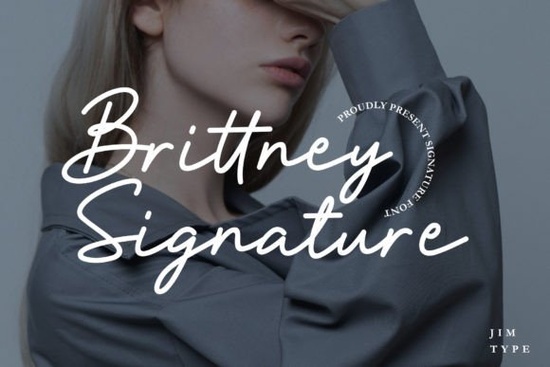
The Brittney Signature Font is a flowing script typeface designed for projects that call for elegance without feeling overdone. If you've been searching for a signature-style font that works across wedding invitations, logo designs, and branded materials, this one delivers clean, sophisticated letterforms with a natural handwritten rhythm. It's available on Creative Fabrica, and it fits well into both personal and commercial design workflows.
What Does the Brittney Signature Font Look Like?
This font features smooth, connected strokes with a slightly slanted baseline the kind of look you'd expect from elegant calligraphy but with more consistency and readability. The curves are soft and deliberate, giving each letter a polished, romantic quality. It doesn't try too hard to be dramatic, which is actually what makes it work so well across different design contexts.
The overall feel is refined and feminine, but not overly delicate. It holds up in both large display sizes and smaller text settings, which isn't always the case with script fonts.
What Can You Use It For?
This typeface works across a surprisingly wide range of projects. Here are some of the most common uses designers and creatives put it to:
- Wedding invitations and save-the-dates The romantic flow of the lettering pairs beautifully with floral and minimalist layouts.
- Logo and branding design Ideal for boutiques, beauty brands, photographers, and lifestyle businesses that want a personal, upscale touch.
- Social media graphics Great for quote posts, sale announcements, and story overlays that need an elegant font without looking stiff.
- Greeting cards and stationery Think thank-you cards, holiday cards, and personalized notes.
- Print-on-demand products Mugs, tote bags, and wall art with a signature-style script tend to sell well in niche markets.
How Does It Compare to Other Script Fonts?
There are plenty of elegant script fonts out there, so how does this one stack up? If you're comparing options, here's a quick look at how it fits alongside similar typefaces you might also consider:
For something with a more regal, formal tone, Royal Wedding Font leans into classic serif-influenced curves that work well for black-tie event materials. If you prefer something with a bit more personality and warmth, Asking For A Friend Font brings a relaxed, conversational energy that's better suited for casual branding.
Designers who want a slightly bolder stroke might look at Alexia Bright Font, which has more visual weight and works well on darker backgrounds. Meanwhile, Celestine Font offers a thinner, more delicate alternative that pairs nicely with minimalist layouts.
The Brittney Signature Font sits comfortably in the middle elegant enough for formal projects but approachable enough for everyday creative work. It's a versatile choice if you don't want to commit to an overly ornate or overly casual look.
Tips for Getting the Most Out of Signature Script Fonts
Working with script fonts takes a little extra care compared to standard sans-serifs or serifs. Here are a few practical tips:
- Mind your spacing. Script fonts often need tighter letter-spacing than you'd expect. A little kerning adjustment goes a long way.
- Pair it with a simple companion font. A clean sans-serif like Montserrat works well for body text alongside any signature script.
- Use it sparingly. Script fonts are most effective as headlines, logos, or accent text. Avoid setting long paragraphs in a signature font it's hard to read and loses its impact.
- Test at multiple sizes. A font that looks beautiful at 72pt might lose clarity at 14pt. Always preview your design at the size it'll actually be seen.
Is It Worth Downloading?
If your work involves wedding design, feminine branding, or any project that benefits from a handwritten, upscale aesthetic, the Brittney Signature Font is a solid addition to your font library. It's not trying to reinvent script typography it just does the elegant-signature look well, with clean letterforms and reliable readability.